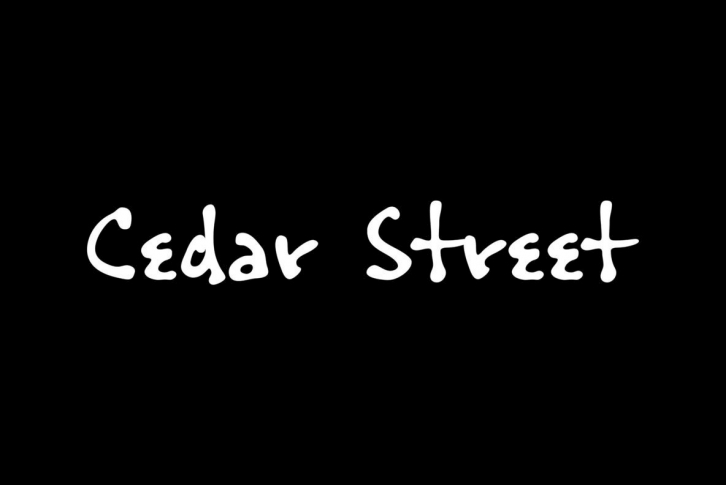
Cedar Street simulates the look of a ballpoint pen on a porous notepad. I find it interesting especially for the little bulbous ends of the strokes where the pen soaked into the paper. Cedar Street has a single, medium weight and comes, of course, with a slew of OpenType features, including true small capitals, numerous ligatures, and old-style and lining figures—as well as full Central/Eastern European language support.